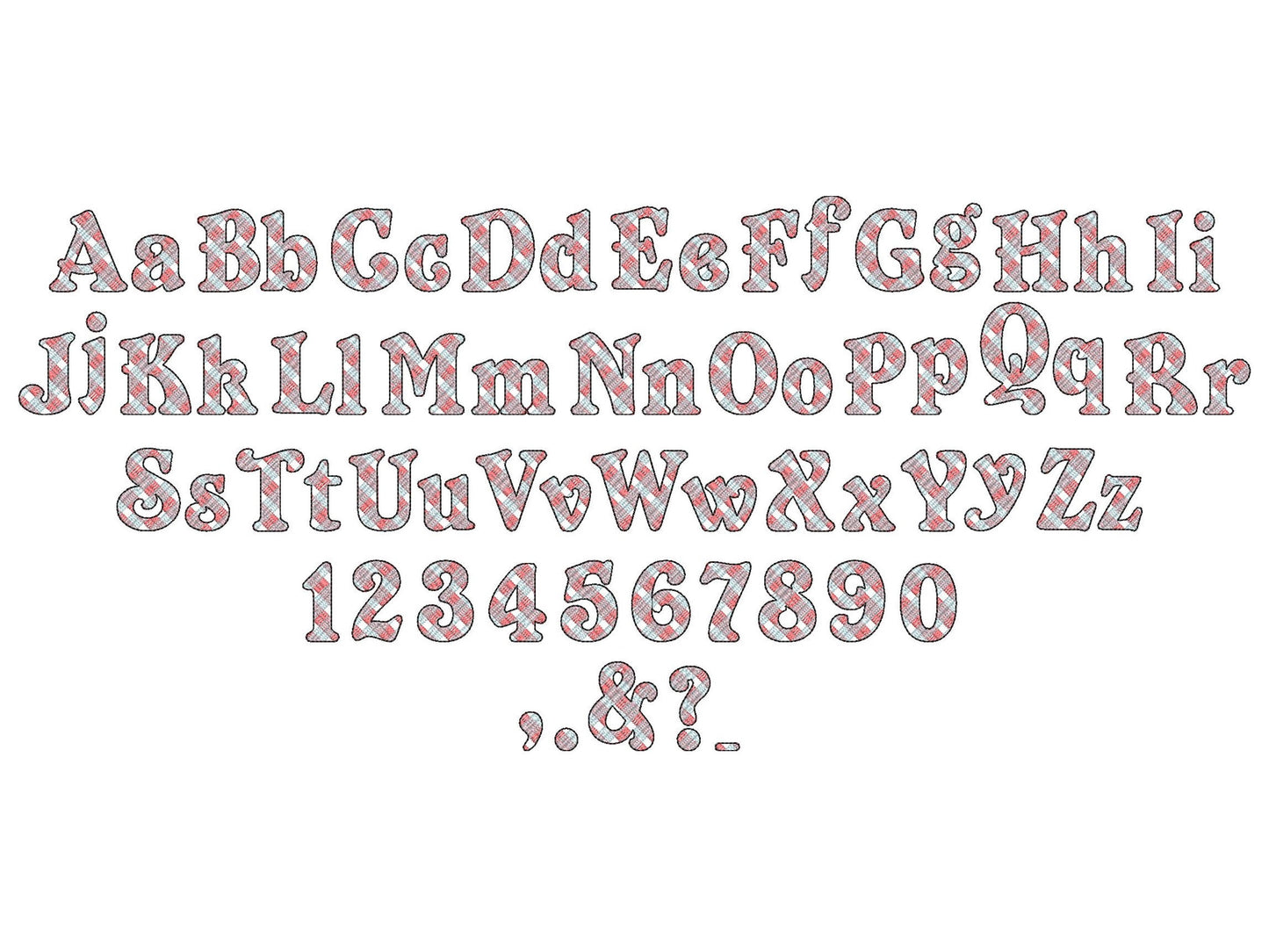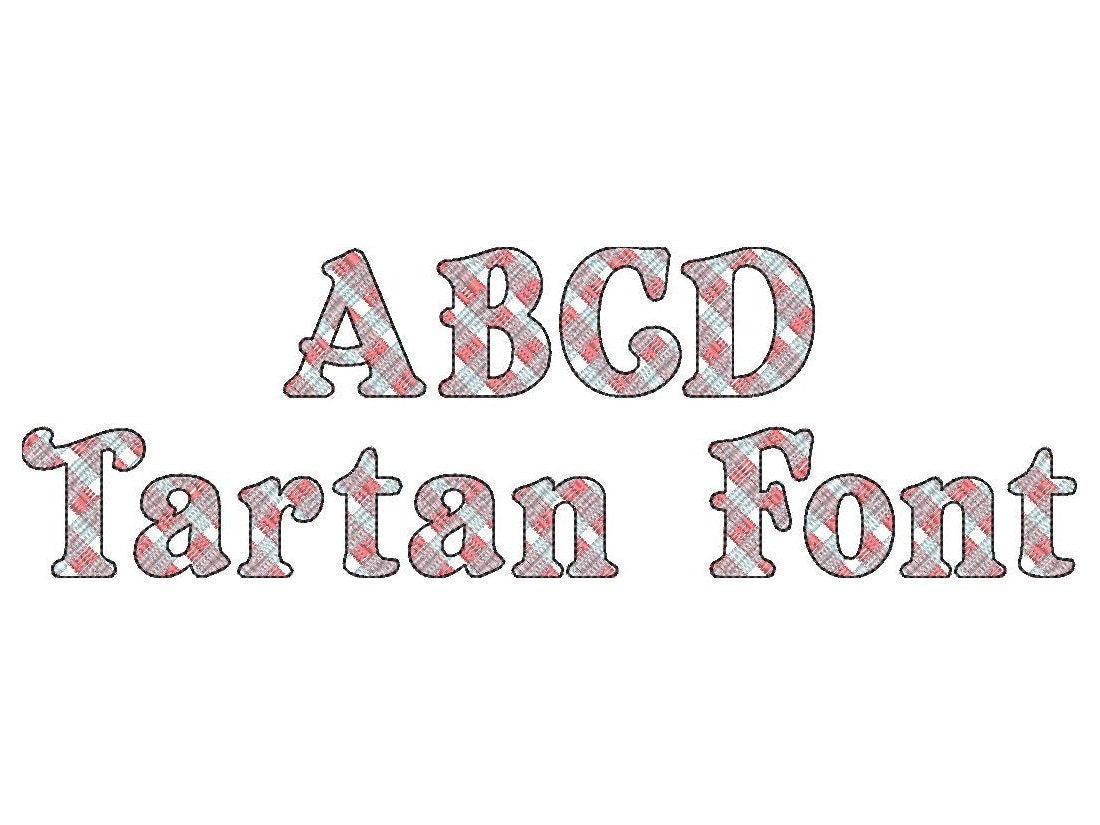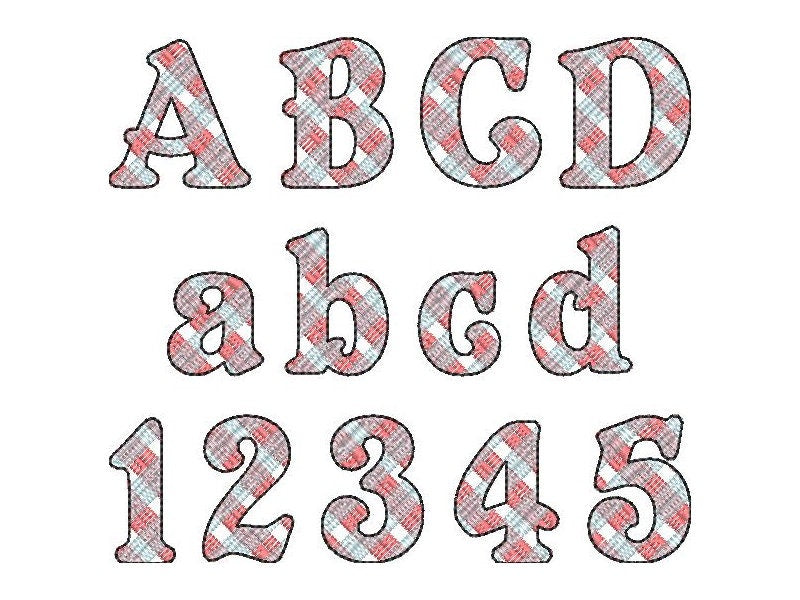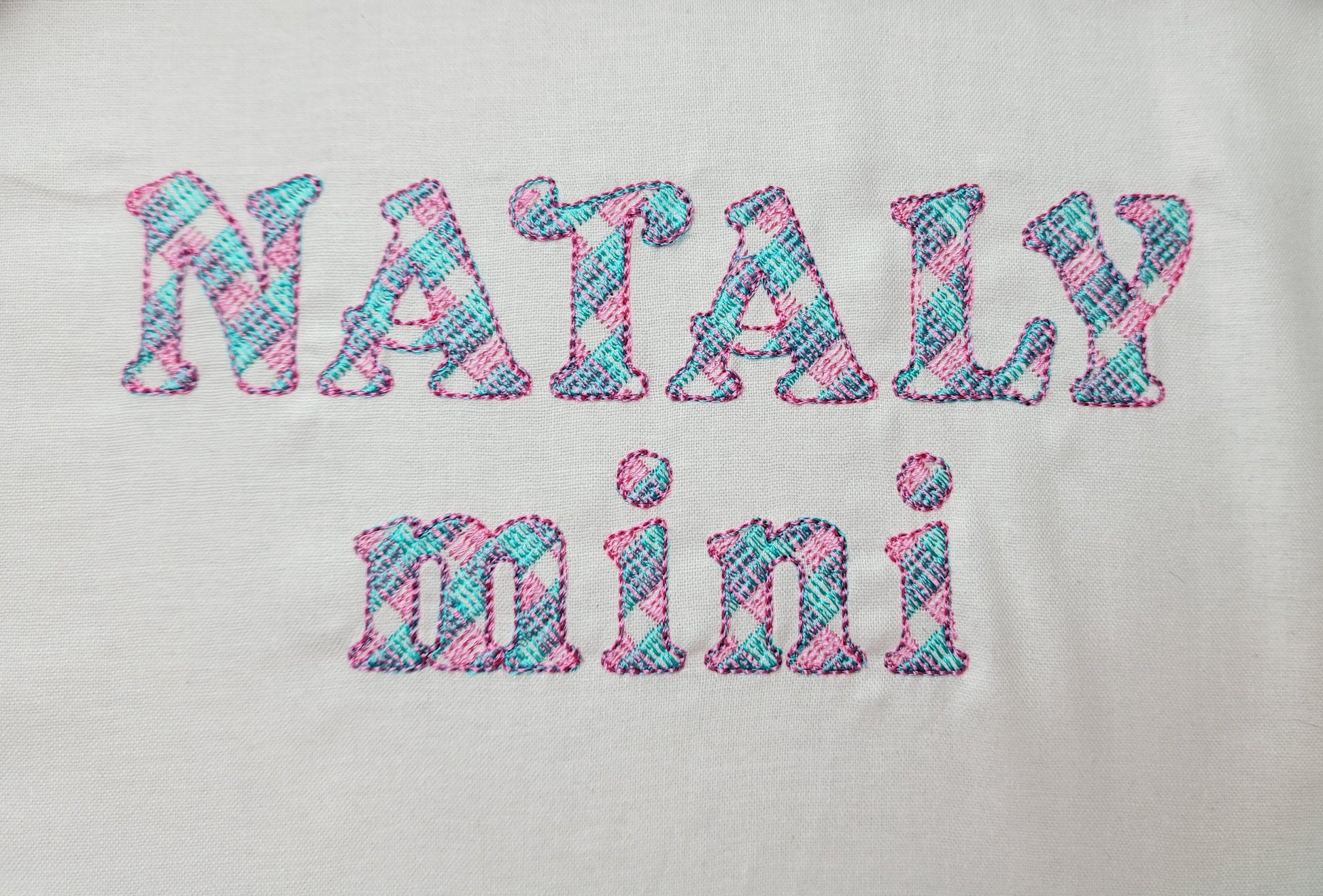
Old Fashioned Tartan Font
Or click to open the linkAn old-fashioned tartan font in small sizes with a light sketch outline that looks like lace, for names on fall and Christmas projects.
A quick stitch: the gingham lines are part of the embroidery and the fabric shows through. Uppercase and lowercase letters, numbers and punctuation in six sizes: 0.9, 1.1, 1.3, 1.5, 1.8 and 2.2 inches.
- Mini tartan sketch font
- Uppercase, lowercase, numbers 0-9, punctuation
- 6 sizes, 0.9 to 2.2 in